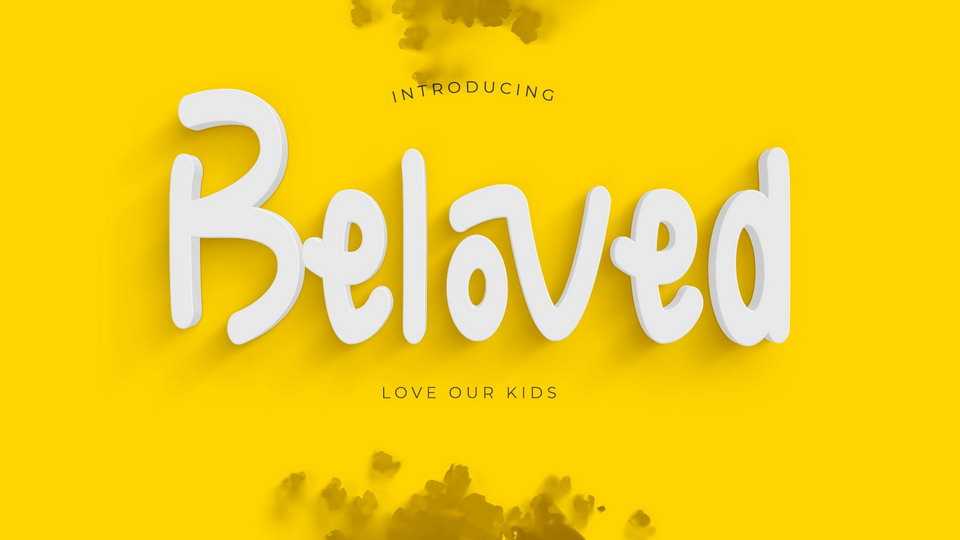
Download Beloved font, a cute and playful handwritten typeface. Beloved is perfect for kids books and products, notes, quotes and other projects, that need a handcrafted feel.